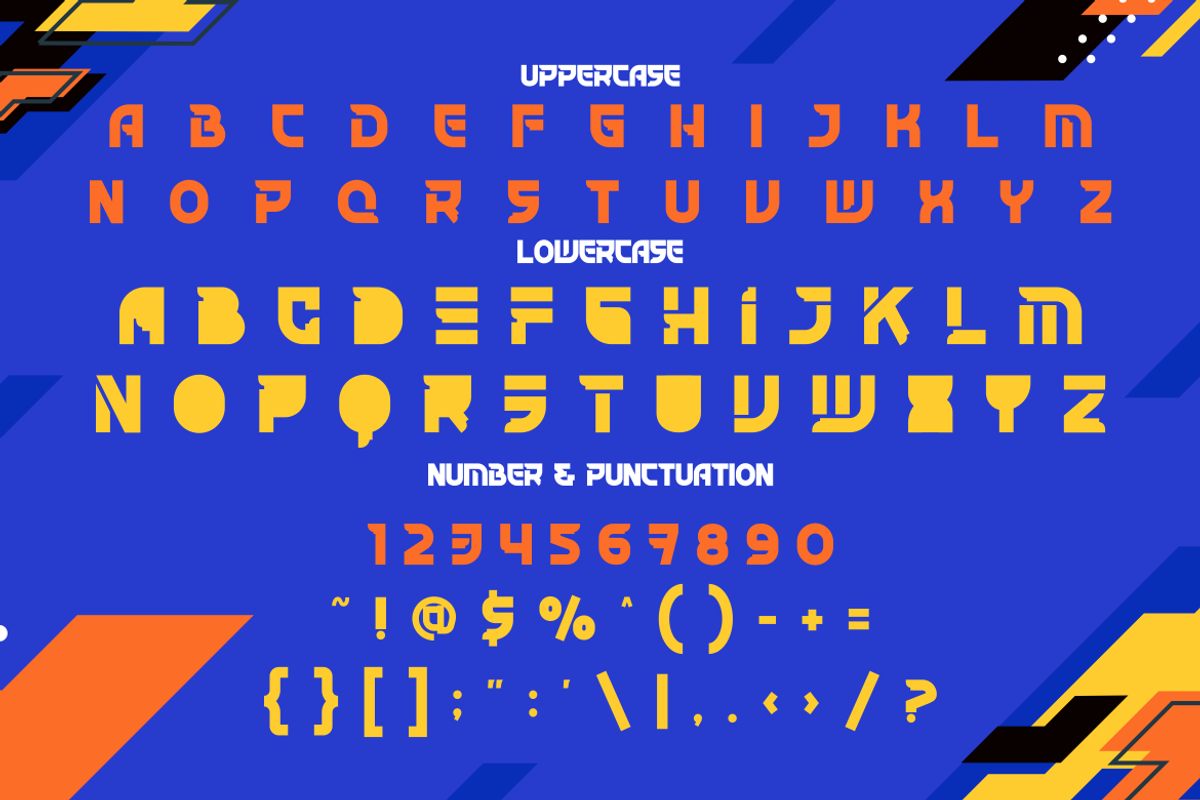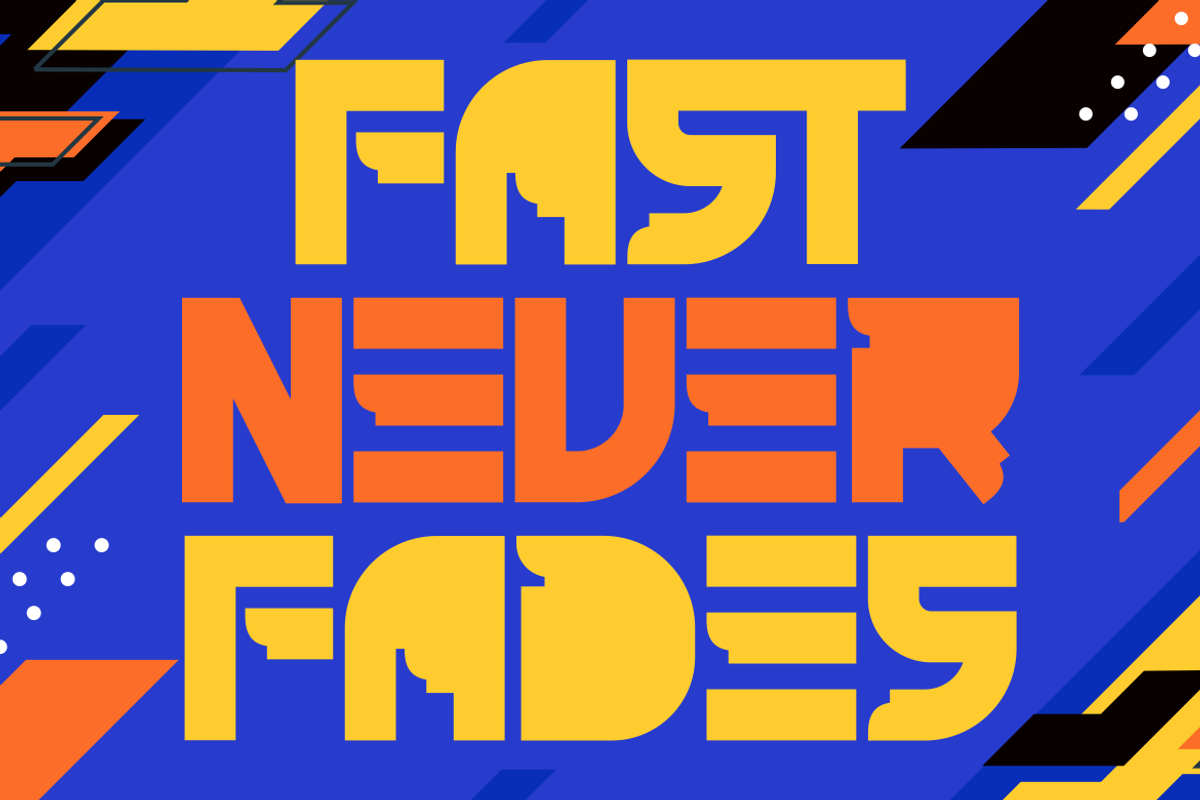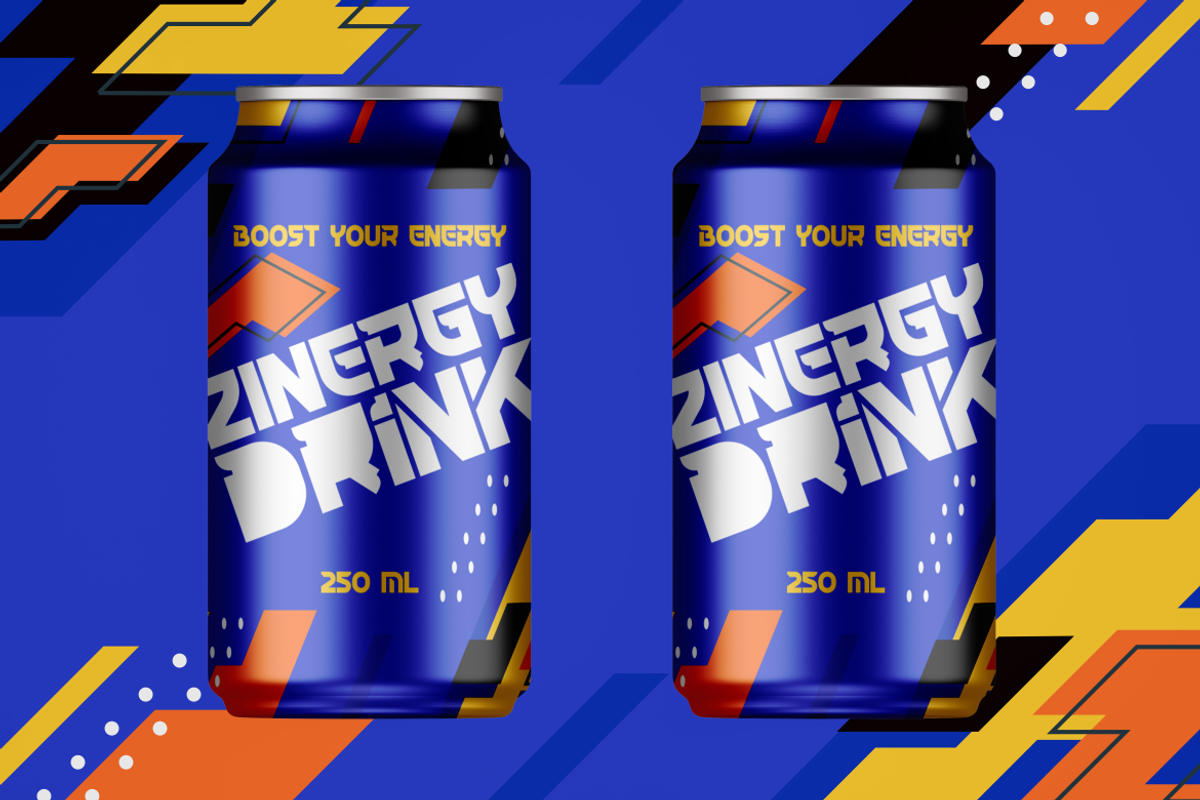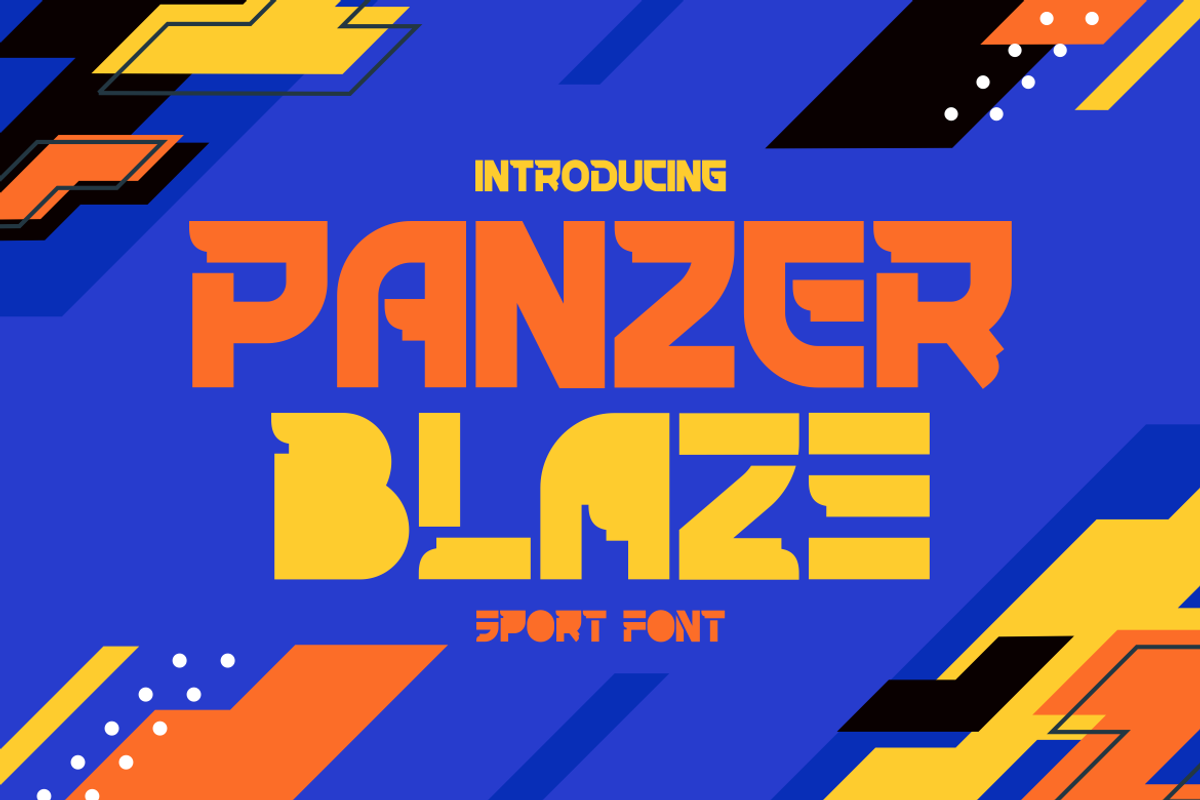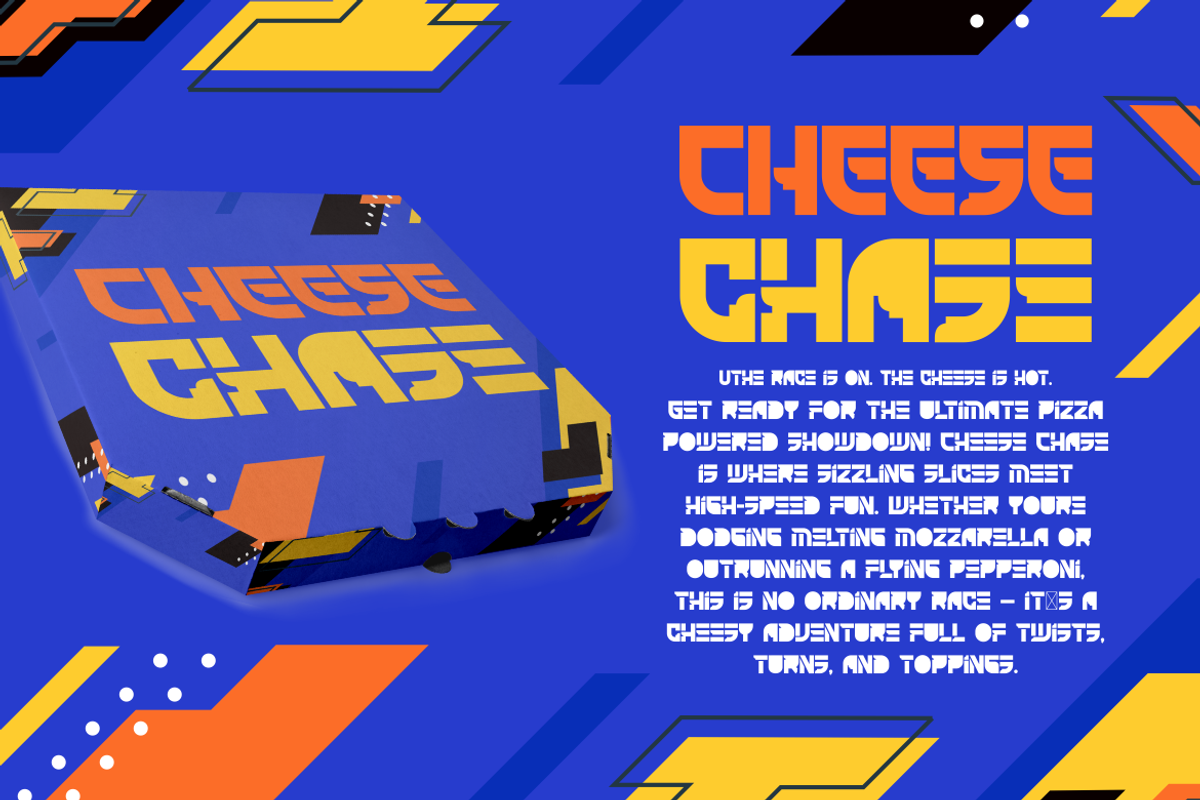
Panzer Blaze Sport Font
Panzer Blaze Sport Font is a high-impact display typeface forged for bold branding and dynamic sports design. With its geometric cuts, chiseled terminals, and electrifying modularity, this font packs pure velocity into every character. The uppercase forms carry a blocky industrial tone, while the lowercase alternates bring visual rhythm with segmented, game-ready aesthetics. Combining sharp angles with stencil-like interruptions, it delivers a masculine, futuristic identity that dominates attention on any medium.
This font was engineered to perform across energetic applications — from esports logos to beverage cans, pizza boxes to race-themed posters. The layered color system and diagonal layout suggestions provide extra motion and versatility. Panzer Blaze is your go-to choice for packaging, film titles, modern stickers, and urban gear branding. Compatible with both retro arcade and fast-forward themes, it empowers brands to move with attitude and style. Whether you're crafting speed-driven visuals or creating hype-driven merch, this font accelerates everything it touches.